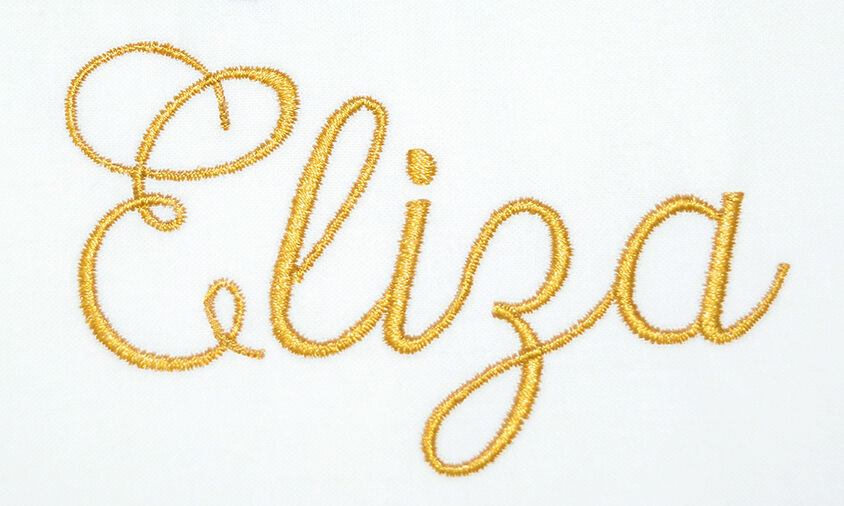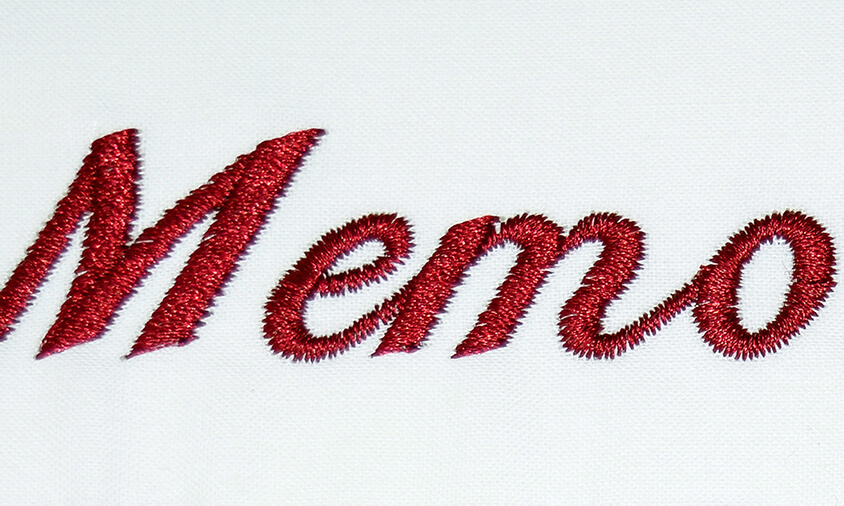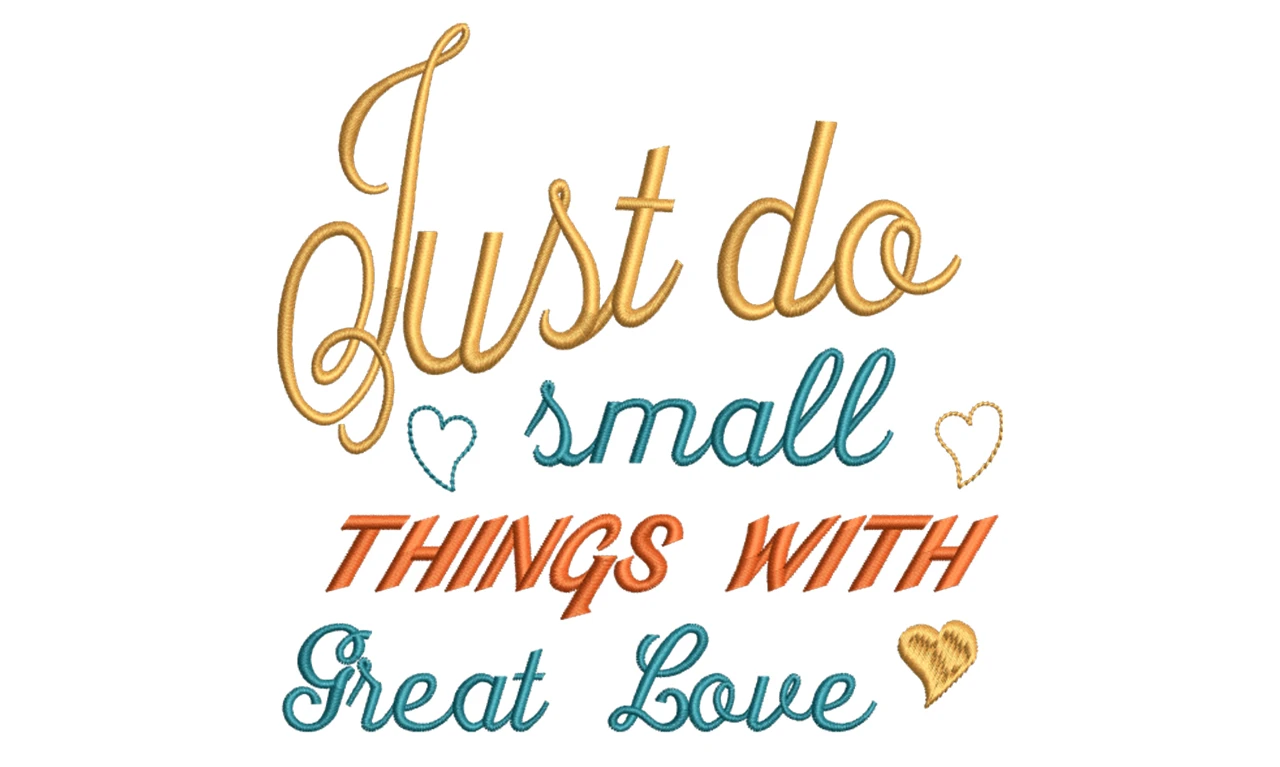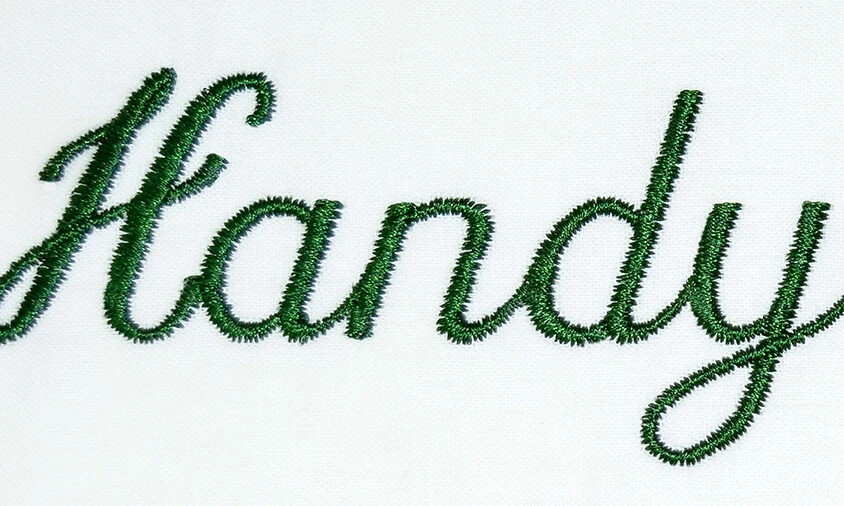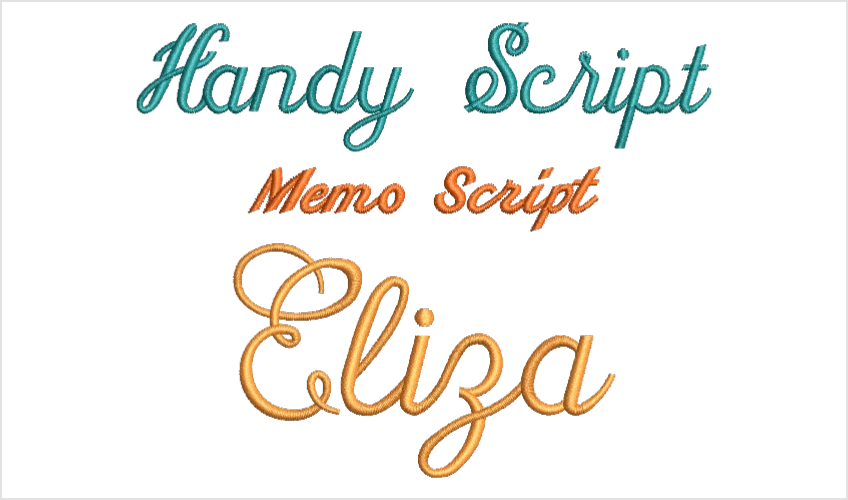
Font Pack #1 - Script
All have been professionally digitized for your casual to elegant embroidery projects. Script fonts can give the look of handwriting to your embroidery designs. This is one of the hardest font types to digitize and still look good.
Memo Script
Easy to read scripts with small to medium size letters
Min: 0.4in, 10mm | Max: 0.59in, 15mm
Handy Script
Narrow baselines fonts with medium size letters
Min: 0.79in, 20mm | Max: 1.97in, 50mm
Eliza
Wide baseline fonts with a larger size range
Min: 1.38in, 35mm | Max: 2.17in, 55mm